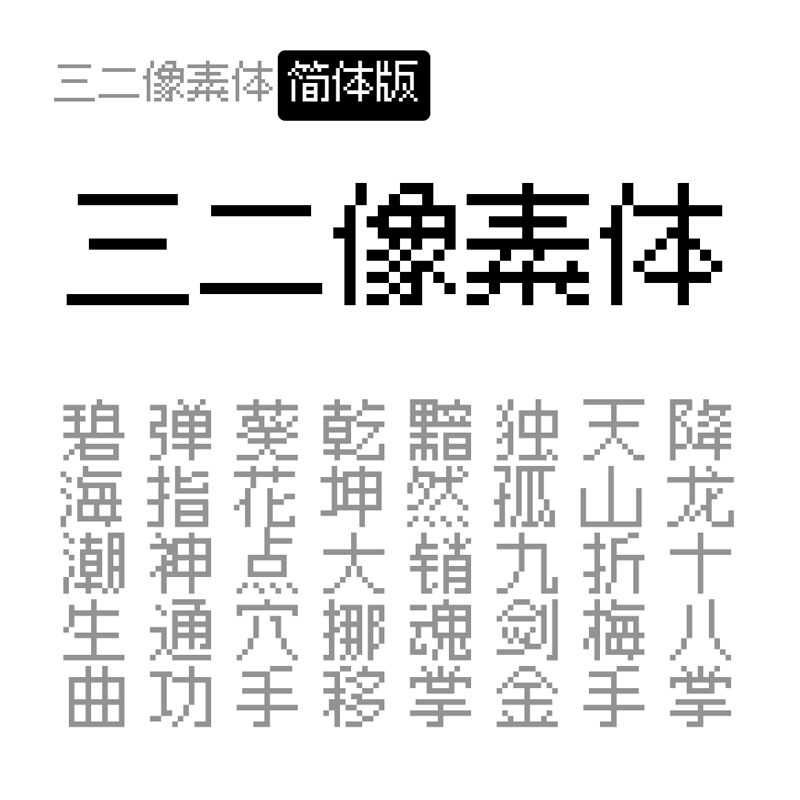
Pix32 font by Yu Job is a free bitmap font with a pixelated appearance. The single font is monochrome, geometric, and minimalistic giving your text a structured and modern output. Pix32 is inspired by the digital world, computer screens, and tech designs; perfect for a focused final look.
This font is suitable for several design projects such as book covers, posters, product placemats, cards, and greeting cards. It can be used in branding, packaging design, and any sort of print design. Pix32 also works well in typography, logos, and magazines.